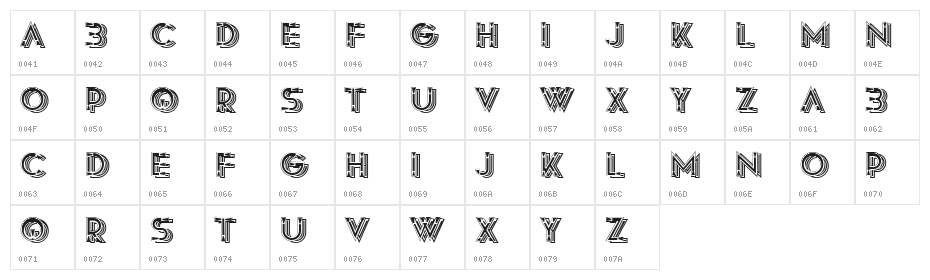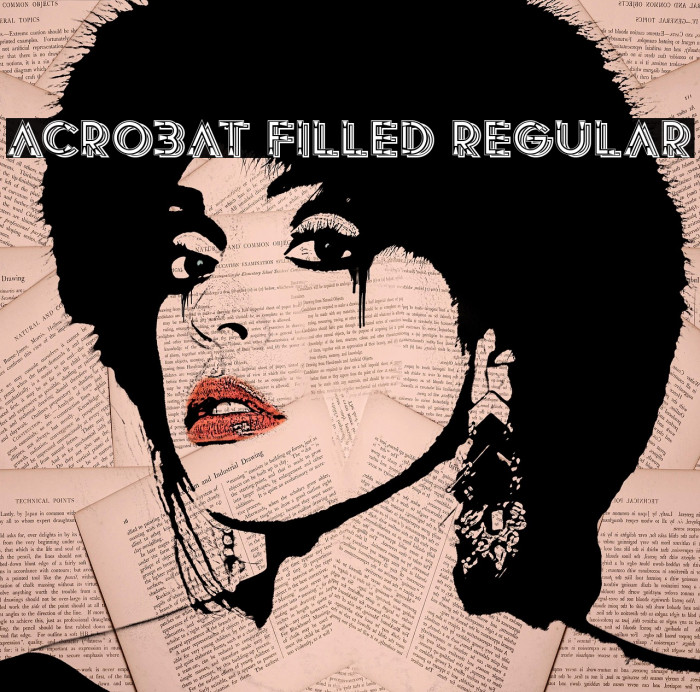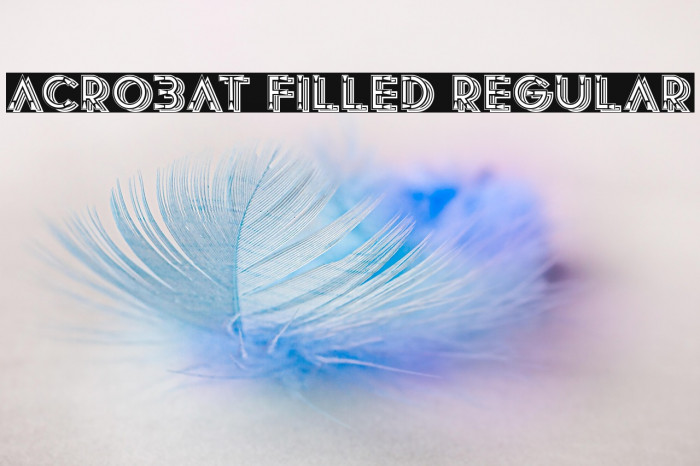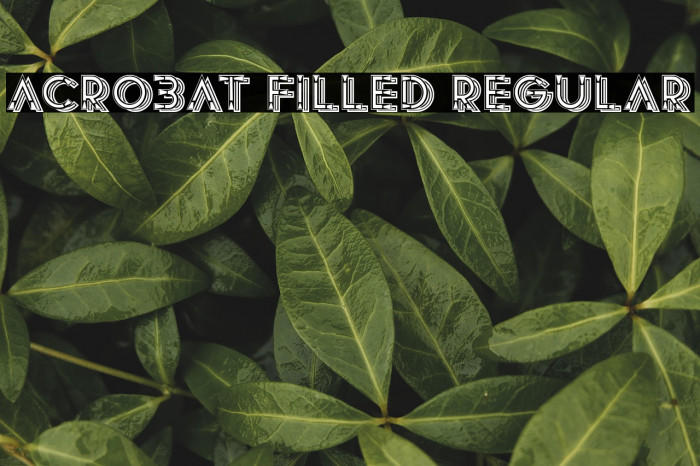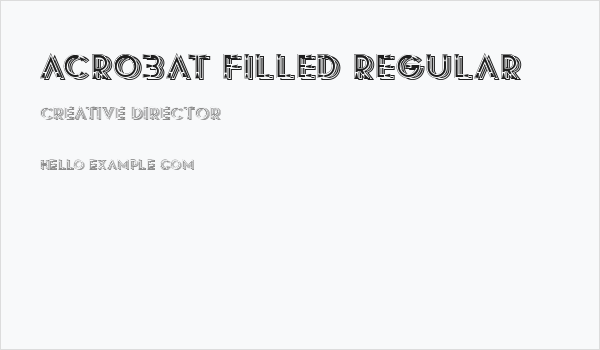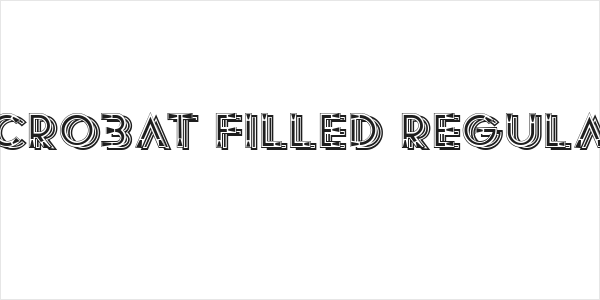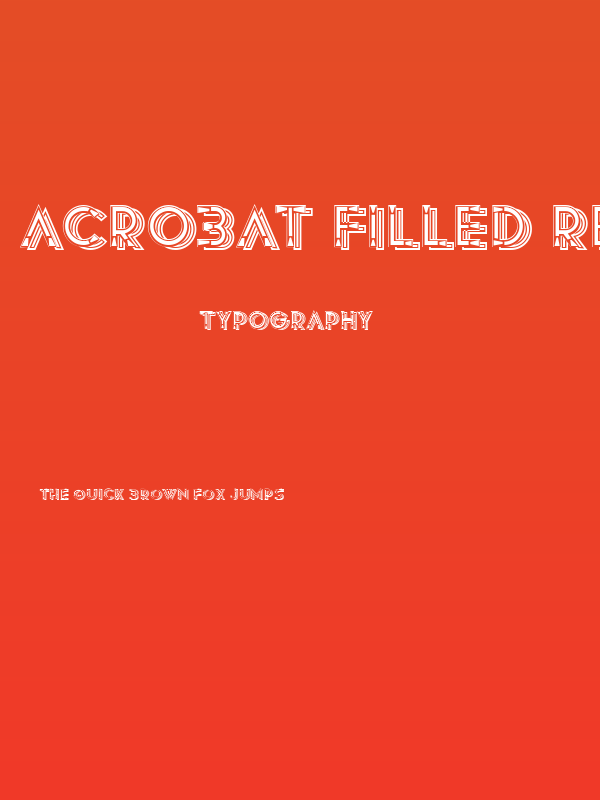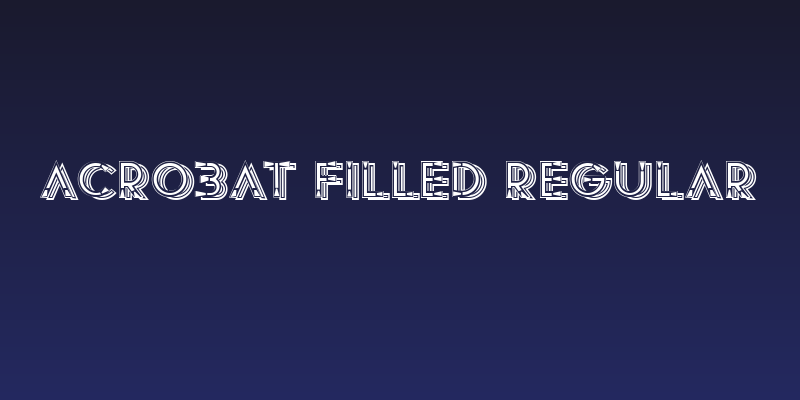
Acrobat Filled Regular Font
Acrobat Filled Regular Description
This font features a bold, geometric design with a filled, layered appearance that creates a striking visual impact. The characters are constructed with multiple layers, giving a sense of depth and dimension. The style is highly decorative, making it ideal for eye-catching designs. The uppercase letters are uniform in height, with a consistent width that adds to the boldness of the font. The intricate detailing within each character enhances its decorative appeal, making it suitable for projects that require a strong visual presence.
| Proposed Projects | Ideal for posters, headlines, branding, and any design requiring a bold, decorative touch. |